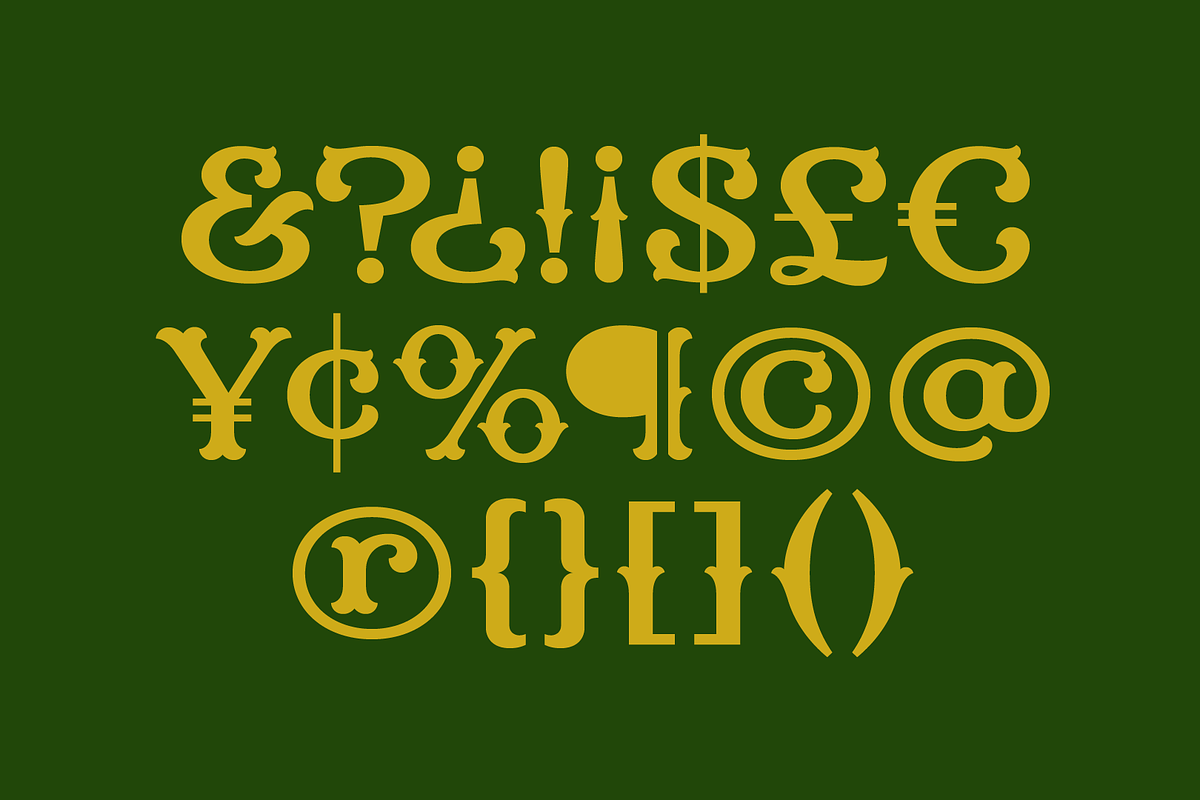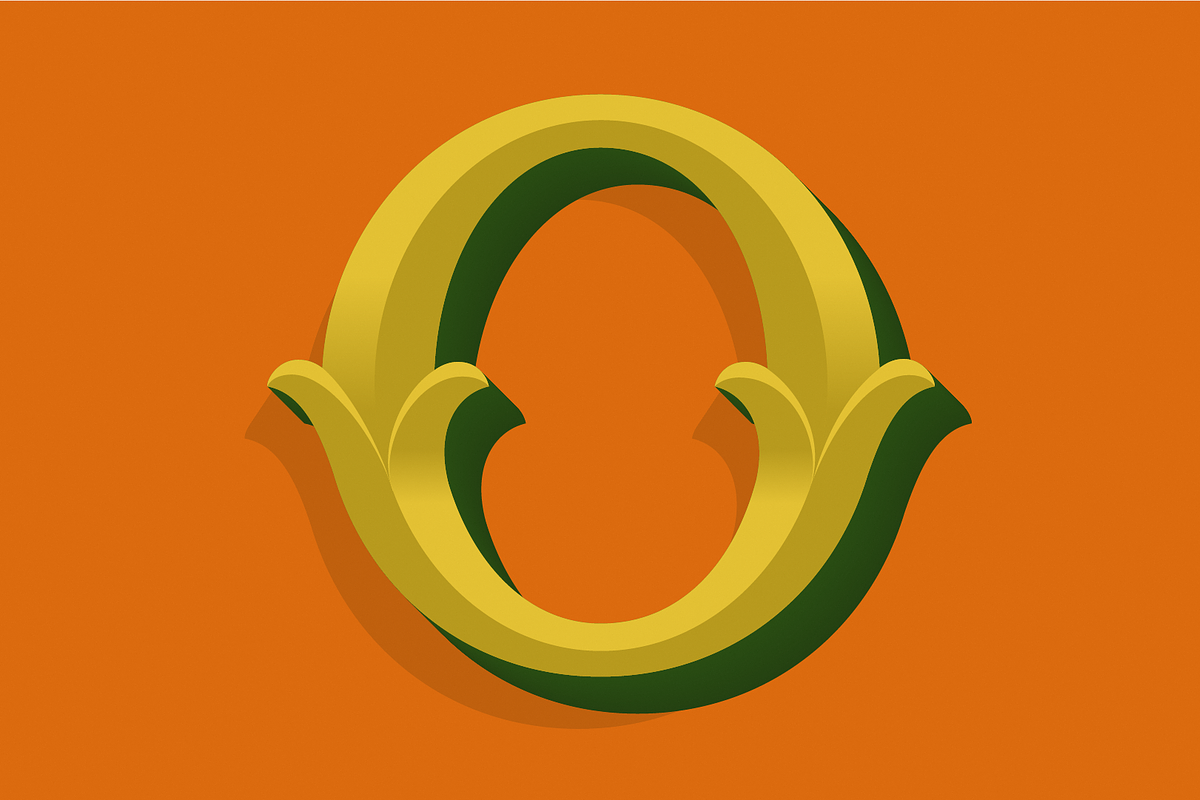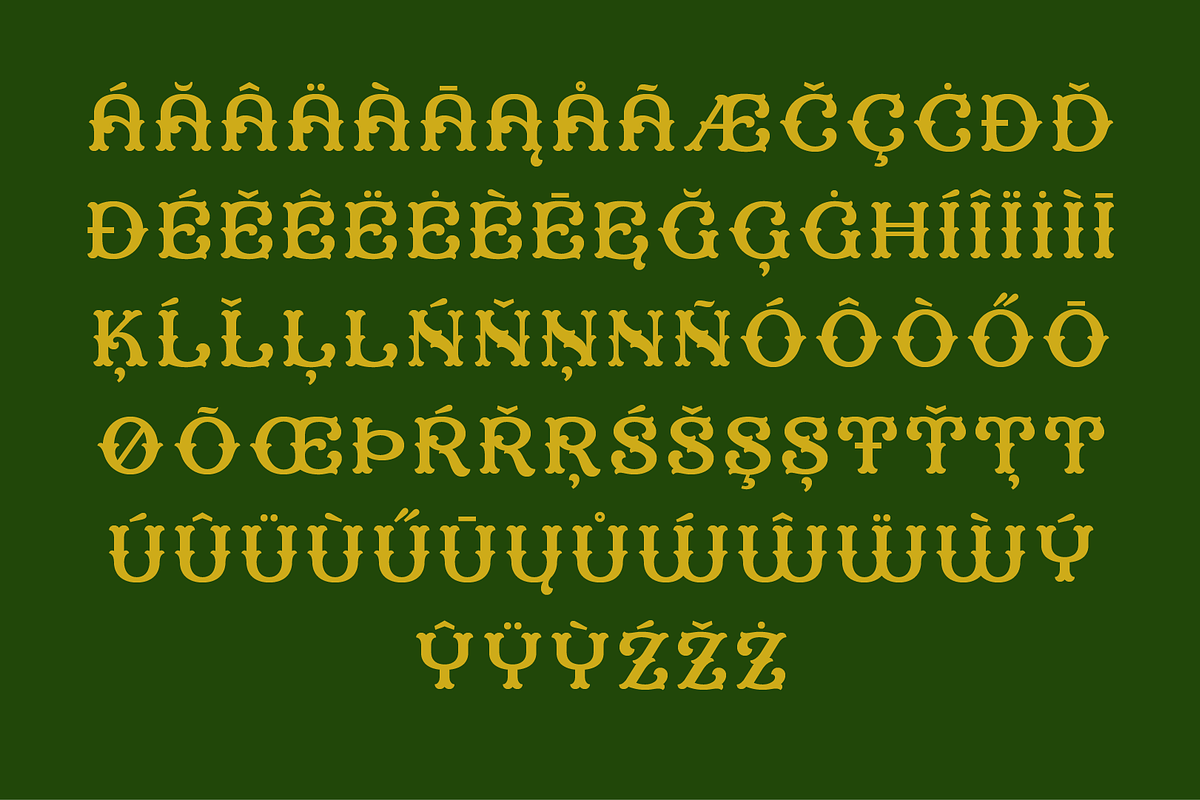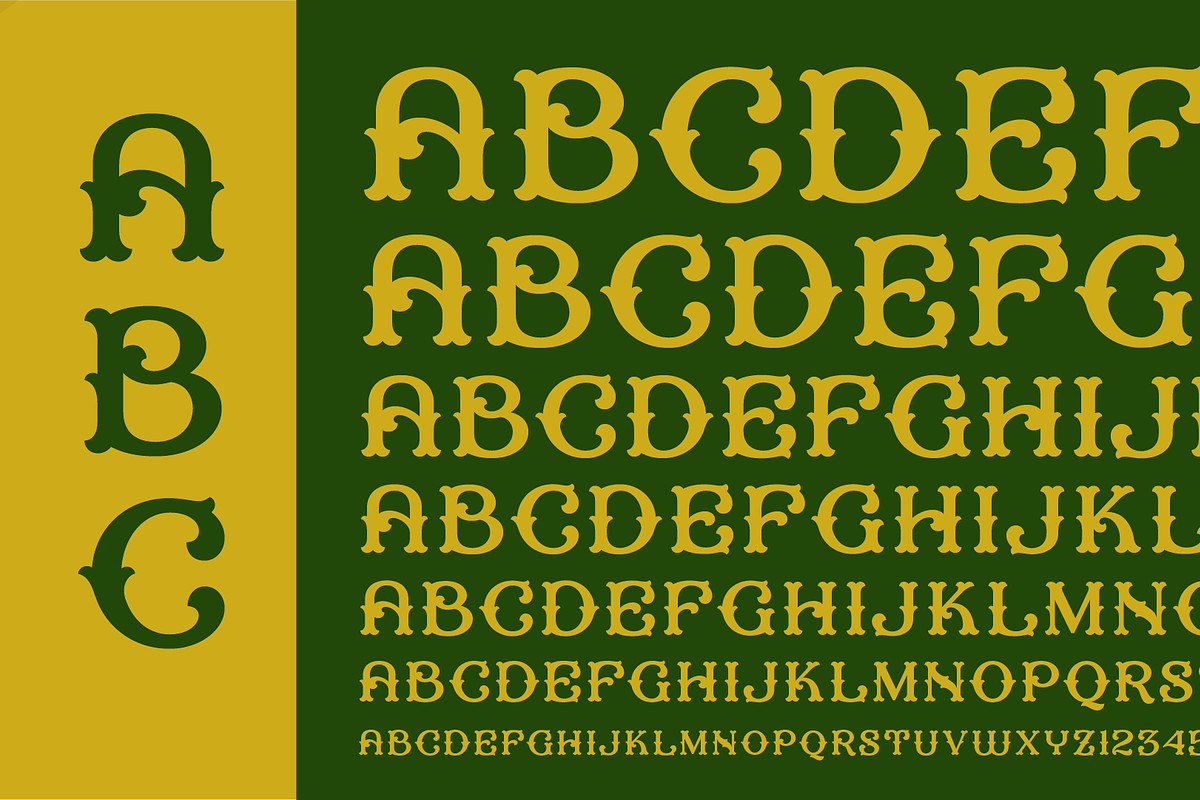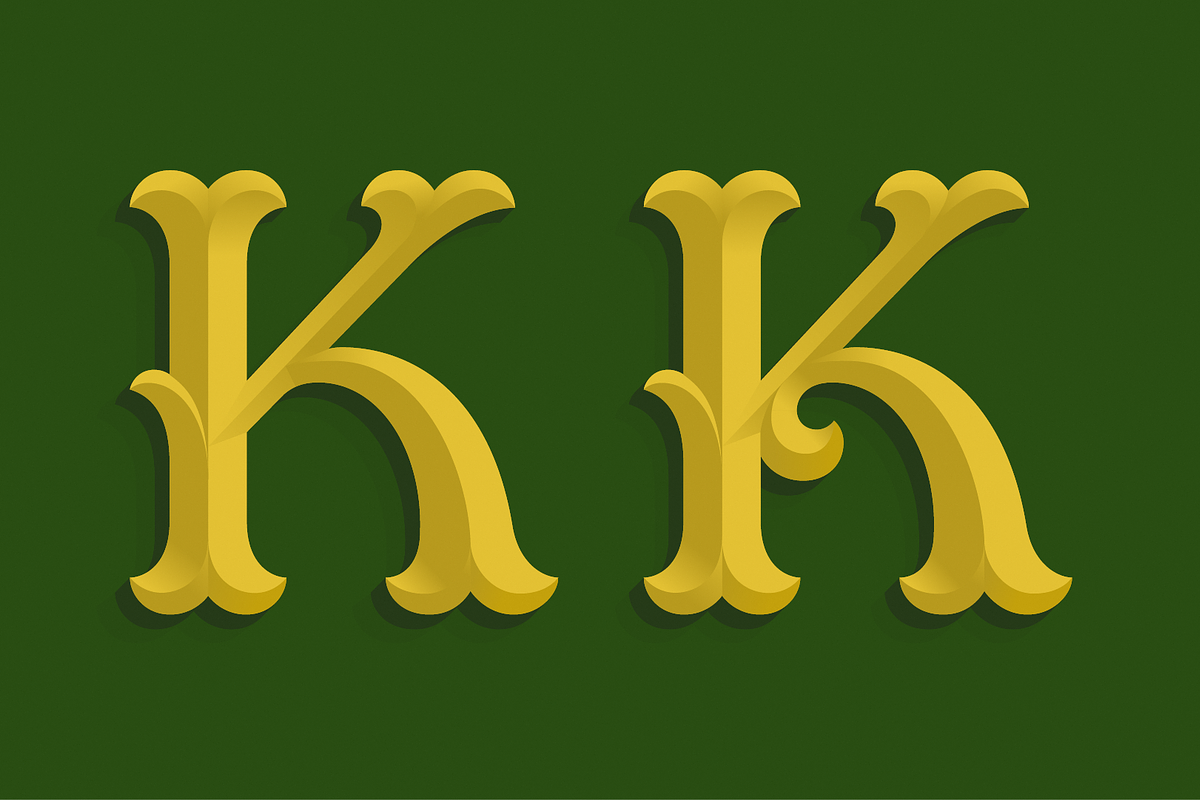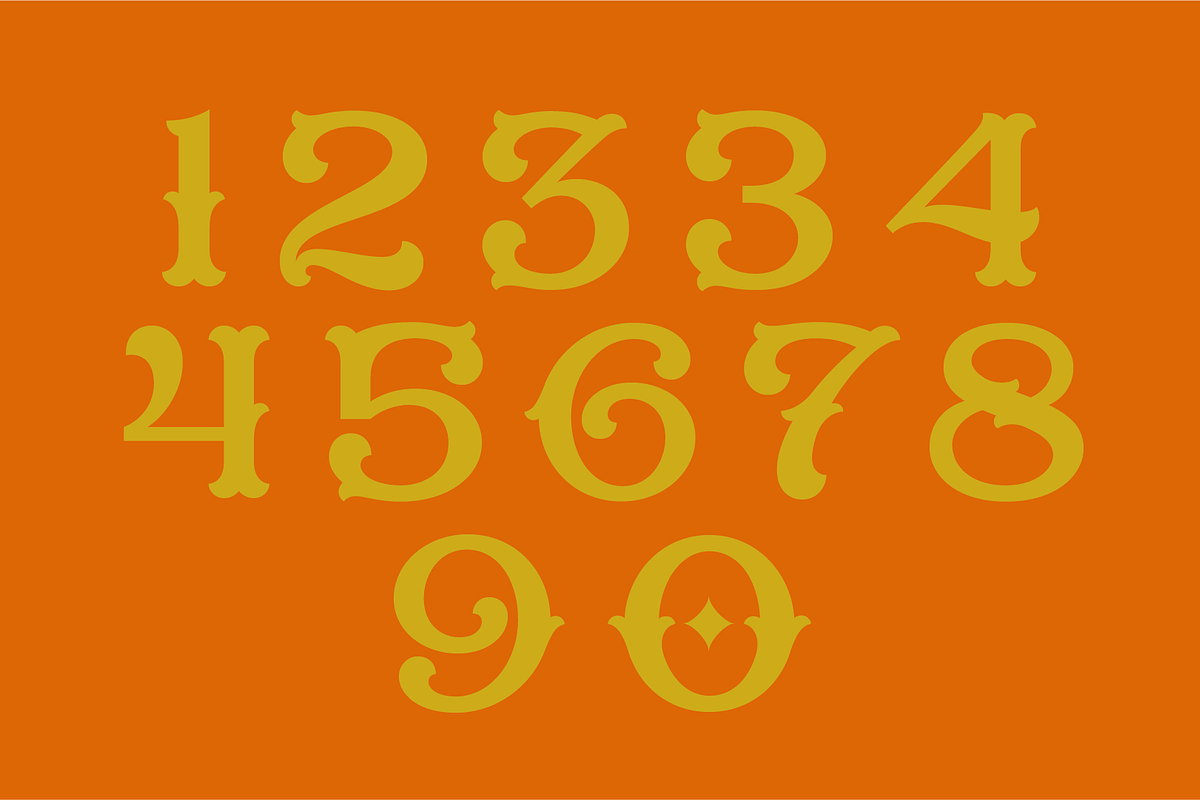
Boulangerie
Decadent curves and gorgeous arches all find their resolve in the fine points of this typeface design. Boulangerie (which means bakery in French) is born out of a love for beauty. I have always been driven to design type that makes the world more beautiful and magical. I hope to see people take this decadent typeface to the next level with their own creativity. Most importantly, I hope Boulangerie makes your world just a little more beautiful.
- European accents
- Numerals 0-9
- Alternate 3 & 4 numerals
- Standard currency symbols
- Special characters